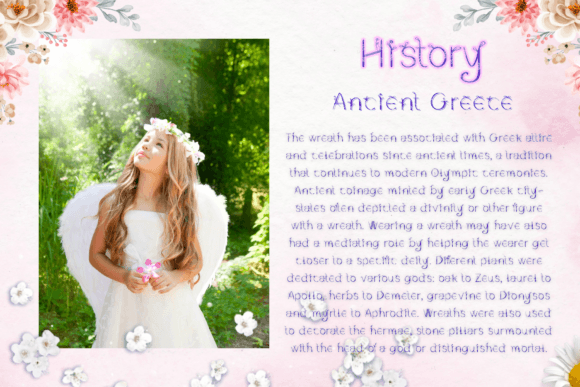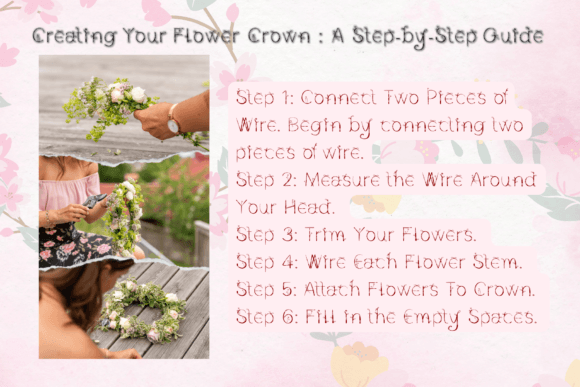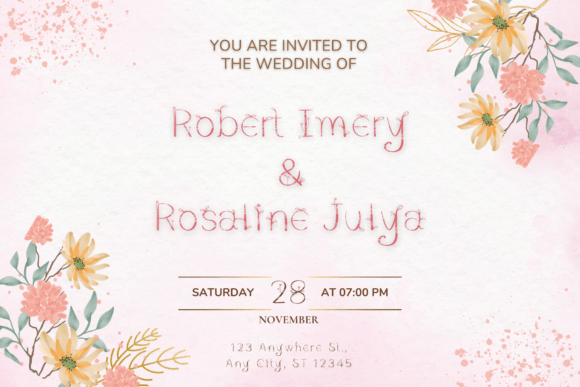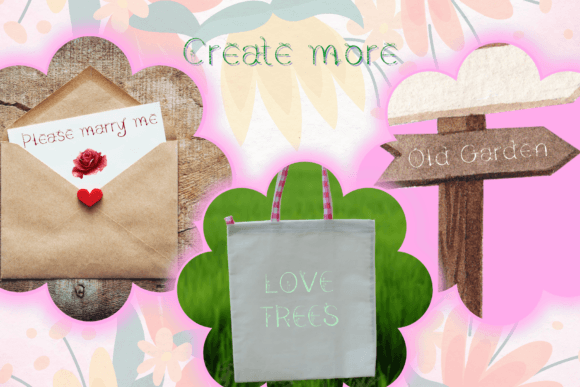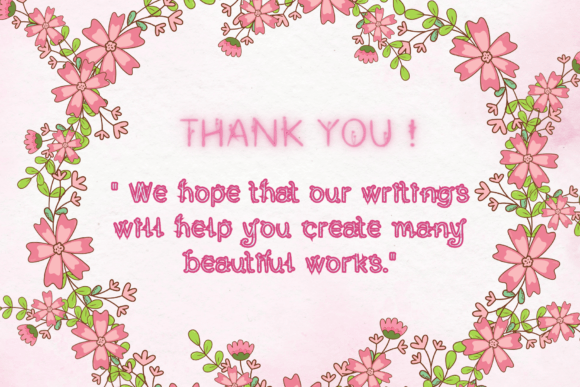
Introducing Flower Crown Font: The Ultimate Decorative Font for Designers and Crafters
Are you looking for a font that can add a touch of elegance and whimsy to your designs? Look no further than Flower Crown Font, an organic and beautiful decorative font that features lovely ornaments. This stunning font is perfect for designers and crafters who want to elevate their creations and make them stand out from the crowd.
What Makes Flower Crown Font So Special?
Flower Crown Font is an incredibly versatile font that can be used for a wide range of projects, from wedding invitations and stationery to branding and packaging. Its unique and intricate design features lovely floral ornaments that add a touch of romance and sophistication to any creation. Whether you’re designing for a special occasion or just want to add some personality to your everyday projects, Flower Crown Font is the perfect choice.
Key Features of Flower Crown Font
- Organic and Hand-Drawn Design: Flower Crown Font features an organic and hand-drawn design that gives it a unique and personal touch.
- Lovely Floral Ornaments: The font features beautiful floral ornaments that add a touch of elegance and sophistication to any creation.
- Highly Versatile: Flower Crown Font can be used for a wide range of projects, from wedding invitations and stationery to branding and packaging.
- Easily Customizable: The font is easily customizable, allowing you to adjust the size, color, and style to fit your needs.
How to Use Flower Crown Font in Your Designs
Using Flower Crown Font in your designs is easy and fun. Here are a few ideas to get you started:
- Wedding Invitations: Use Flower Crown Font to create beautiful and elegant wedding invitations that set the tone for the big day.
- Stationery: Add a touch of personality to your stationery with Flower Crown Font, perfect for letters, cards, and journals.
- Branding and Packaging: Use Flower Crown Font to create unique and eye-catching branding and packaging that stands out from the crowd.
- DIY Crafts: Use Flower Crown Font to create beautiful and personalized DIY crafts, such as signs, banners, and decorations.
Why Designers and Crafters Love Flower Crown Font
Designers and crafters love Flower Crown Font for its unique and beautiful design, versatility, and ease of use. Here are a few reasons why:
- Unique and Eye-Catching: Flower Crown Font is a unique and eye-catching font that adds a touch of elegance and sophistication to any creation.
- High-Quality Design: The font features a high-quality design that is both intricate and elegant.
- Easy to Use: Flower Crown Font is easy to use and customize, making it perfect for designers and crafters of all levels.